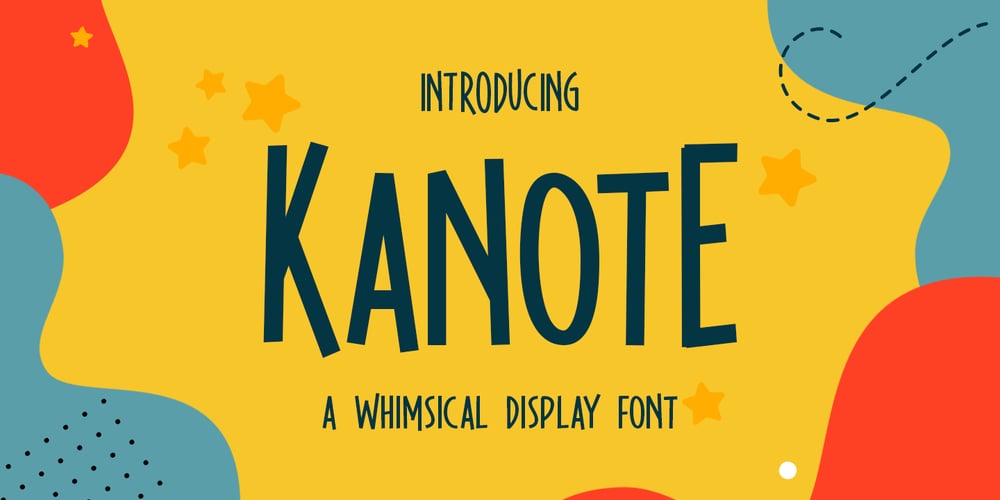
Kanote Font Family was designed by Hendry Juanda and published by Letterhend. Kanote contains 2 styles and family package options. Introducing, Kanote. A Whimsical display font. This typeface is have a playful and casual look, very suitable to use for headline, title, logo or anything especially related with fun themed design project.Features : uppercase & lowercase (alternates) numbers and punctuation multilingual PUA encoded We highly recommend using a program that supports OpenType features and Glyphs panels like many of Adobe apps and Corel Draw, so you can see and access all Glyph variations.How to activate opentype feature : https://letterhend.com/tutorials/using-opentype-feature-in-any-software/Email us to letterhend@gmail.com if you need something! Happy Designing!